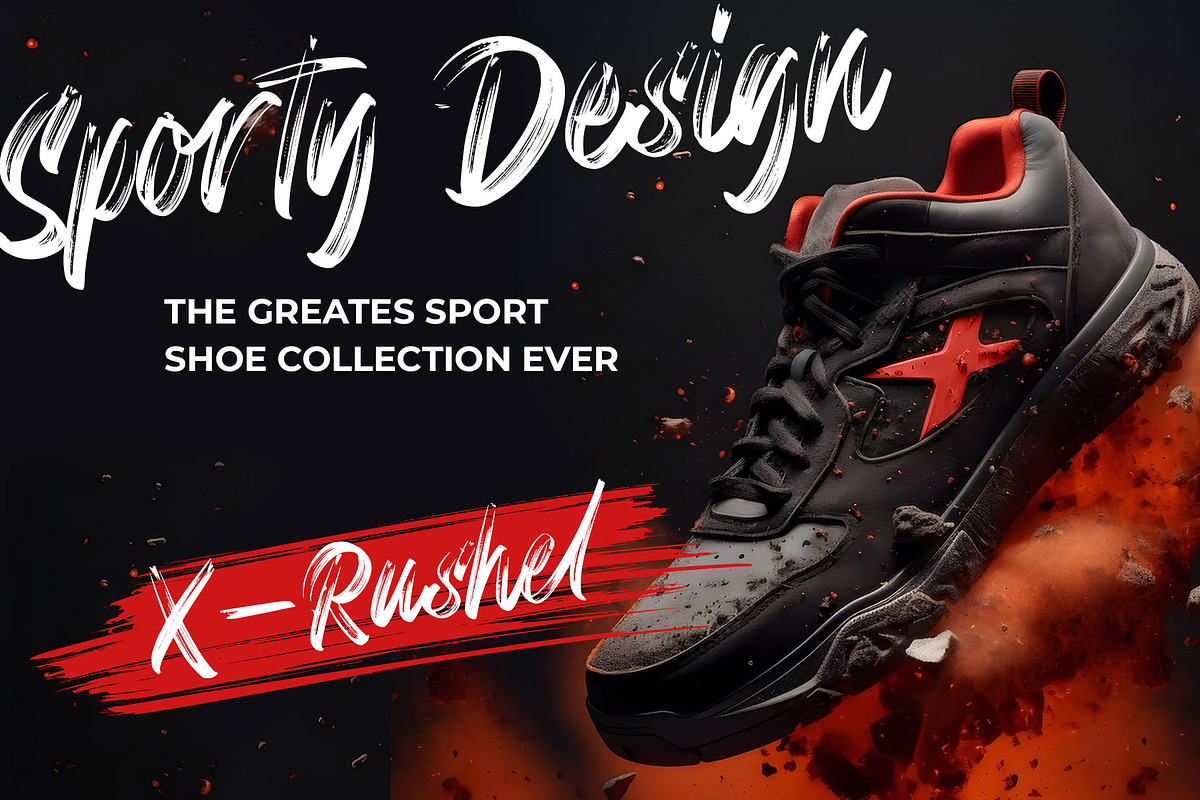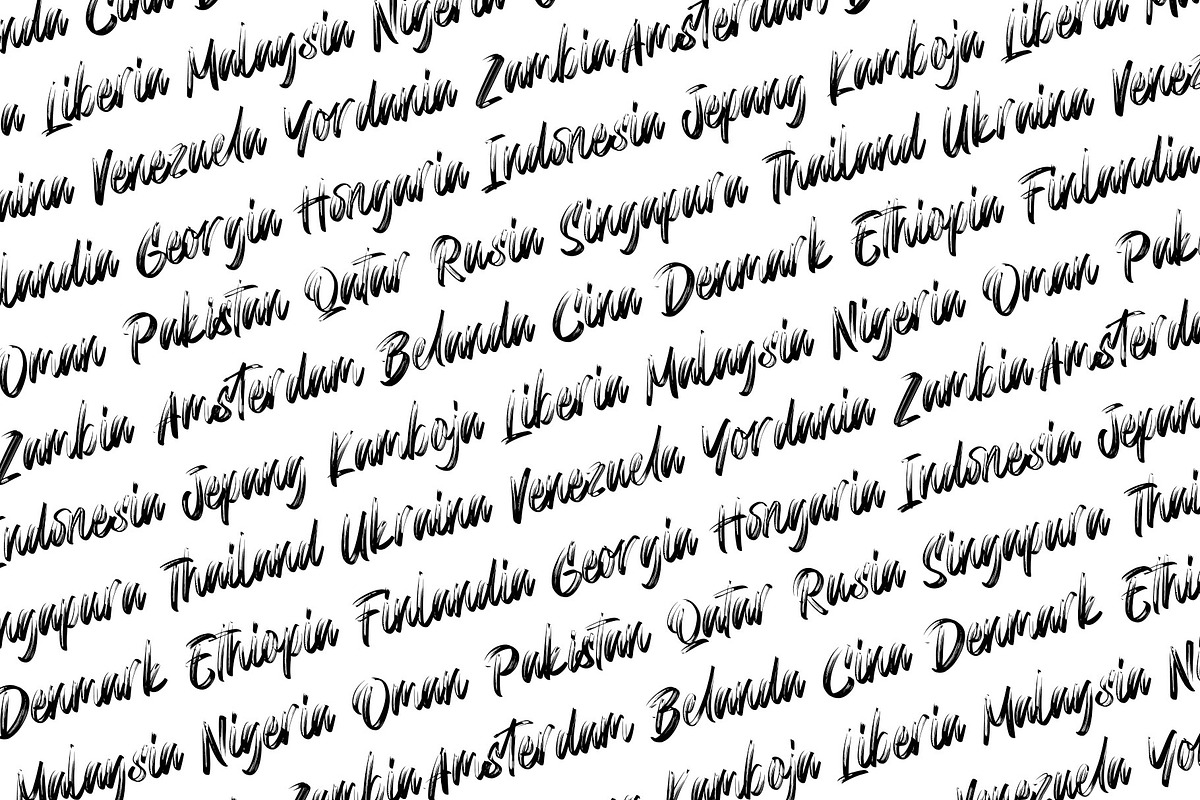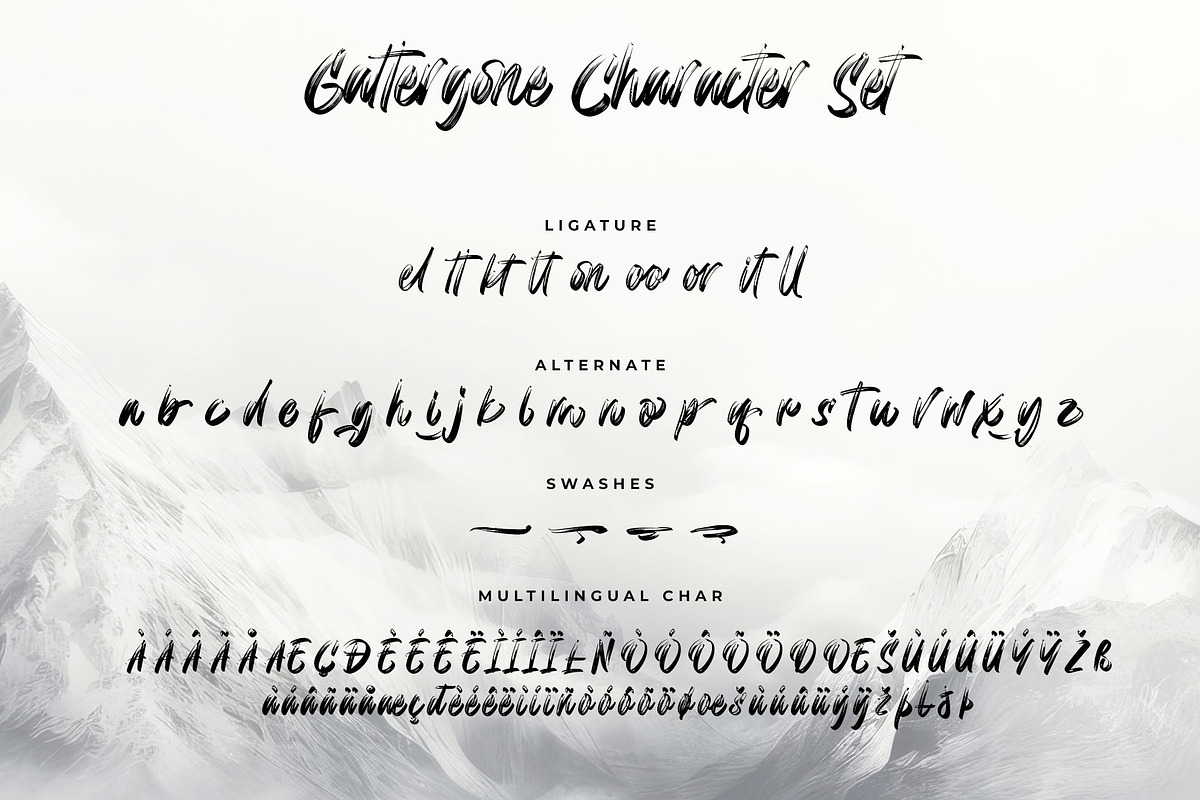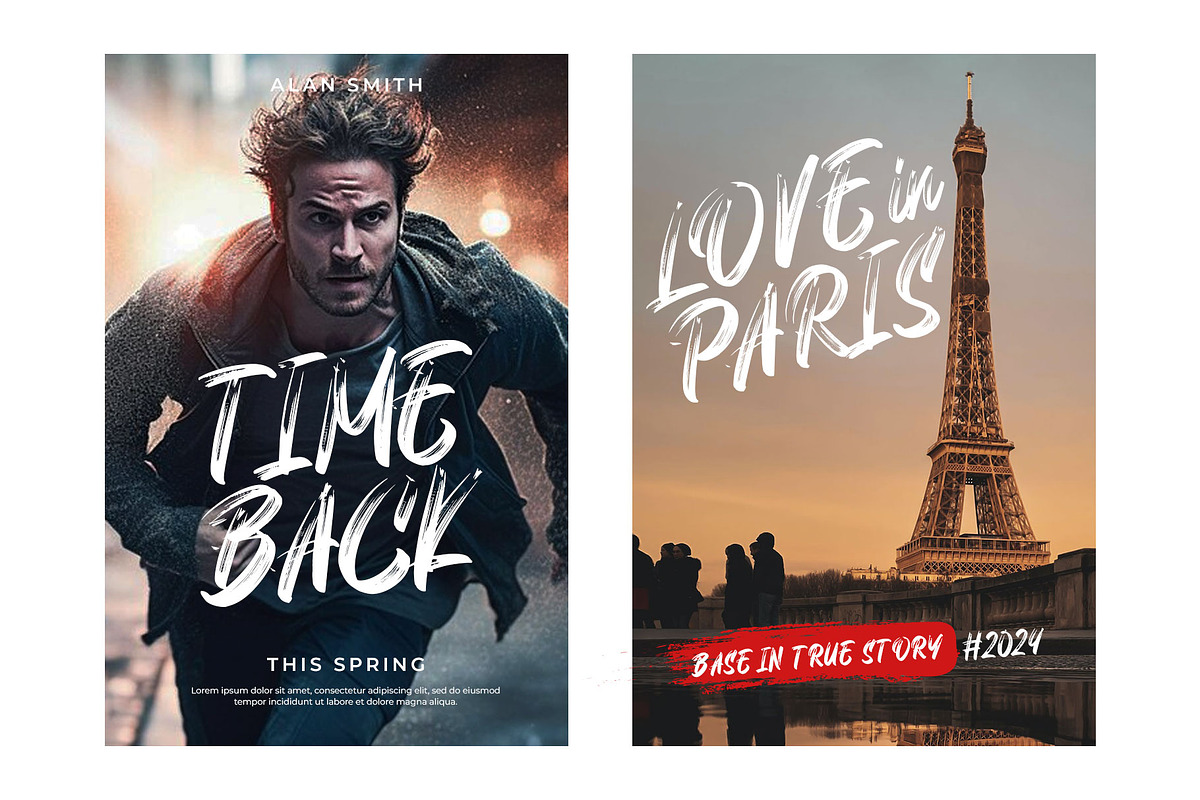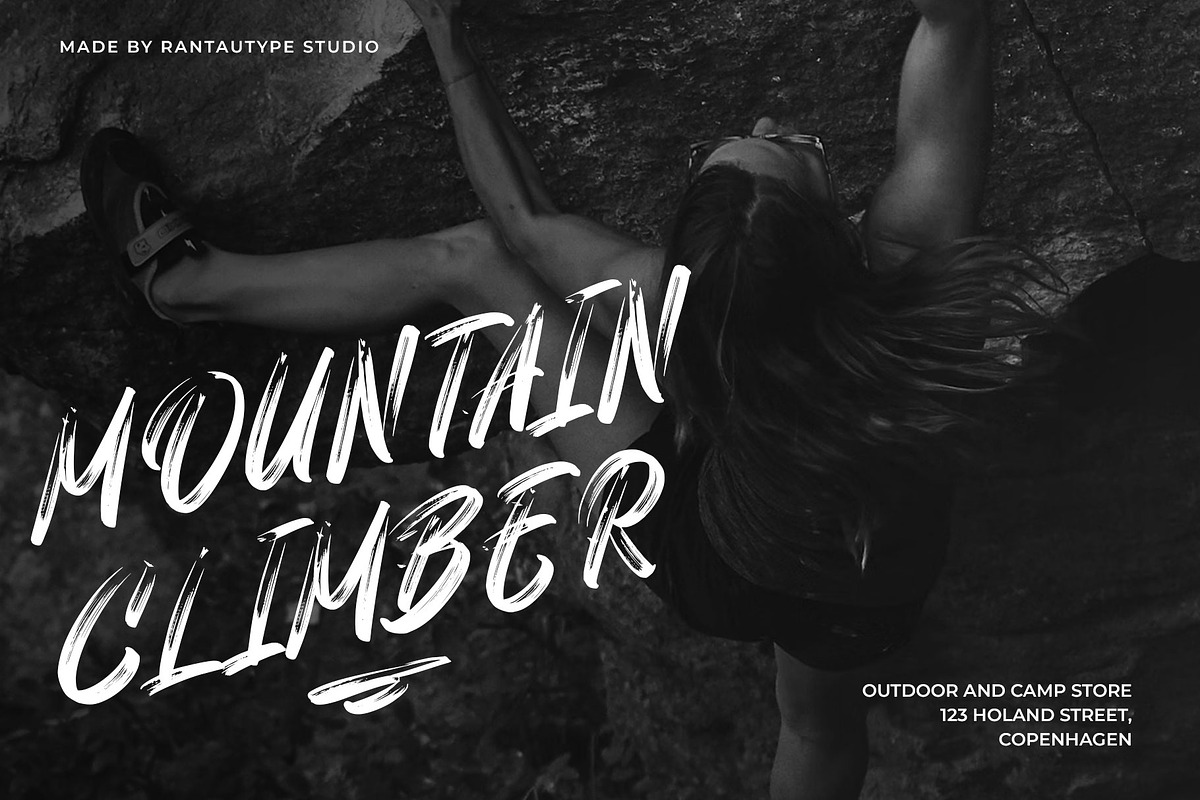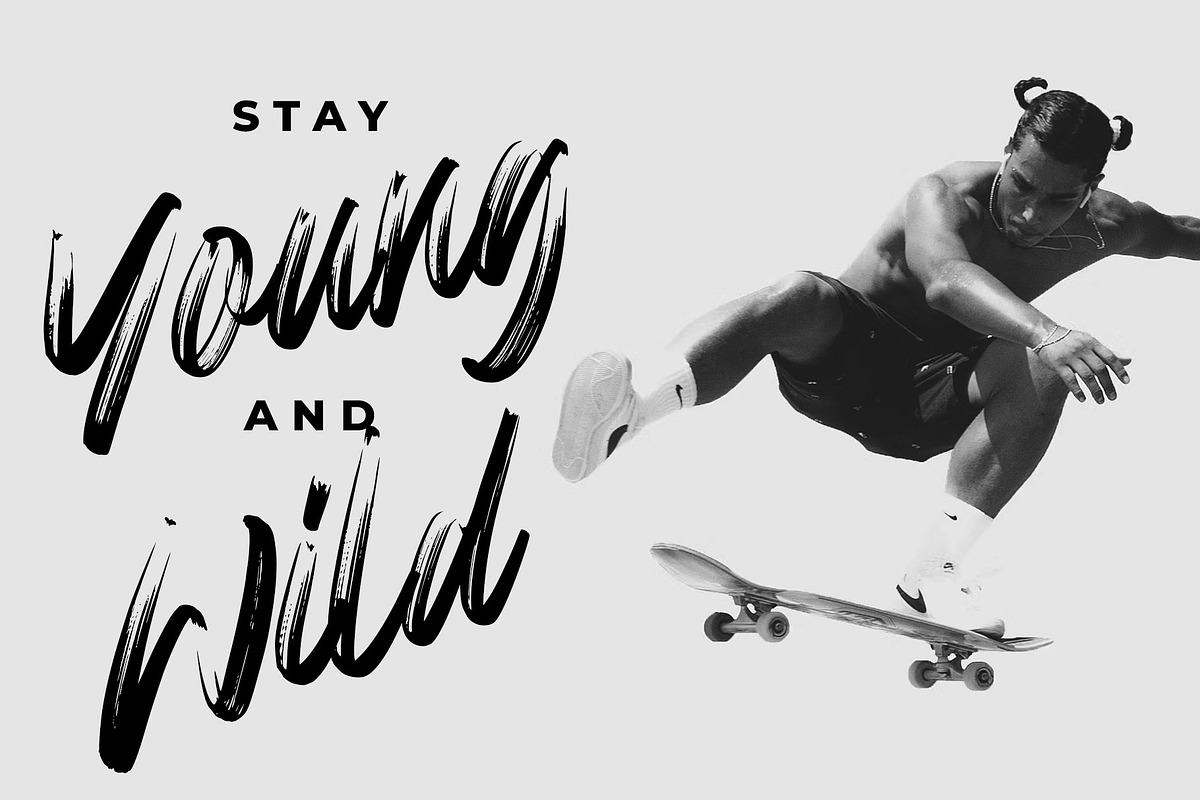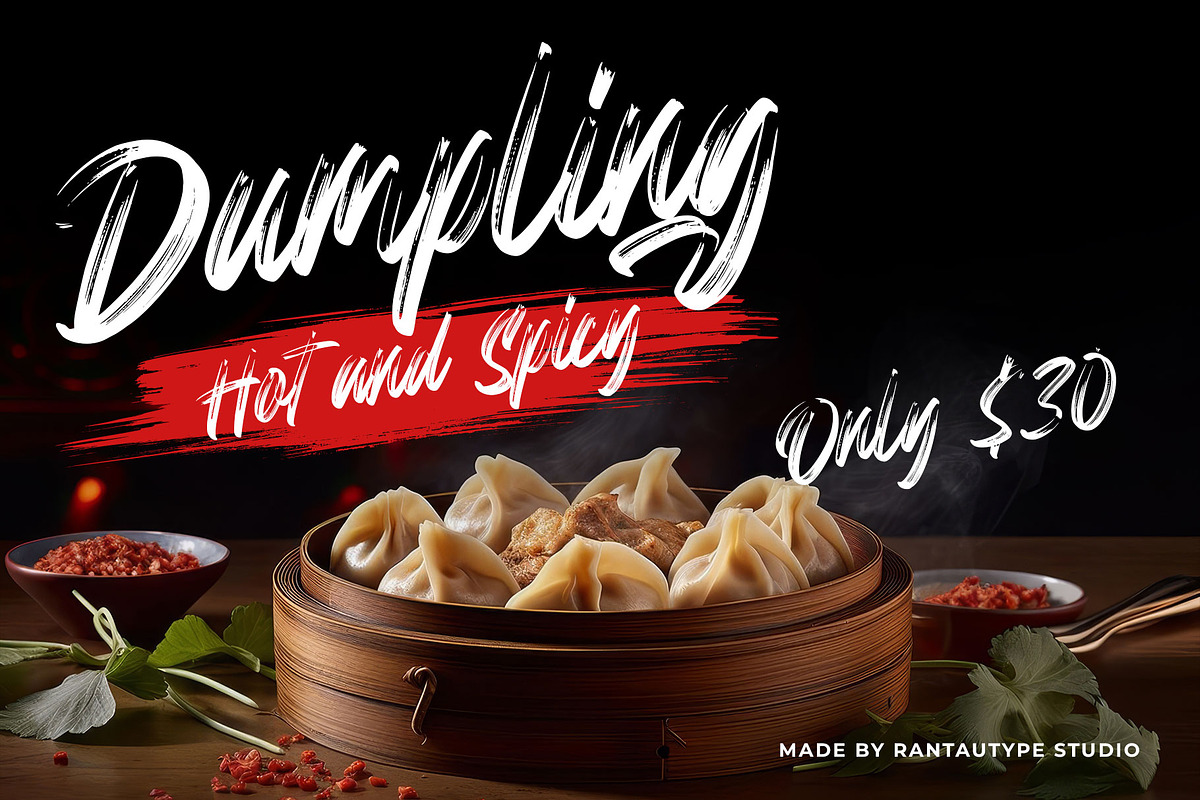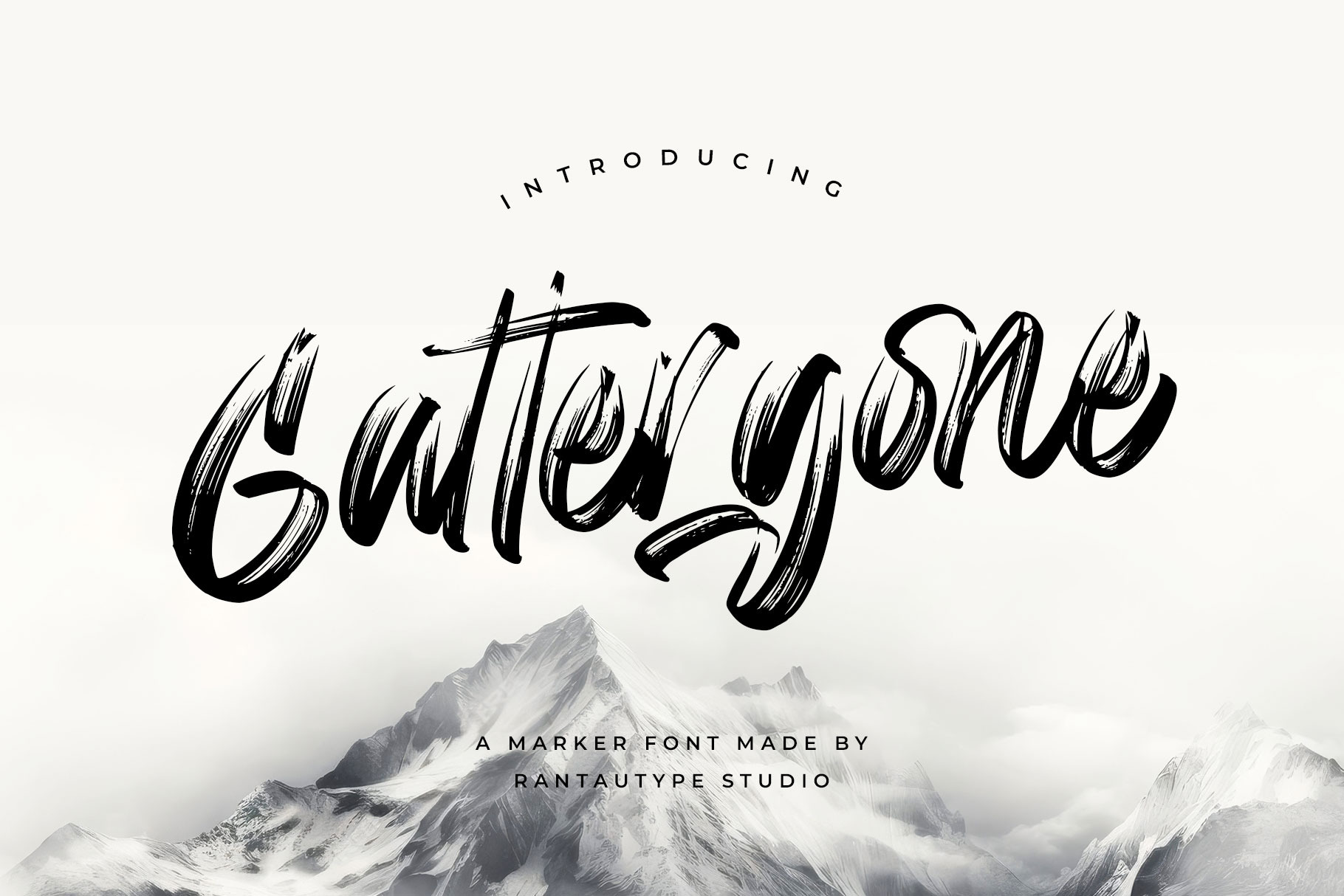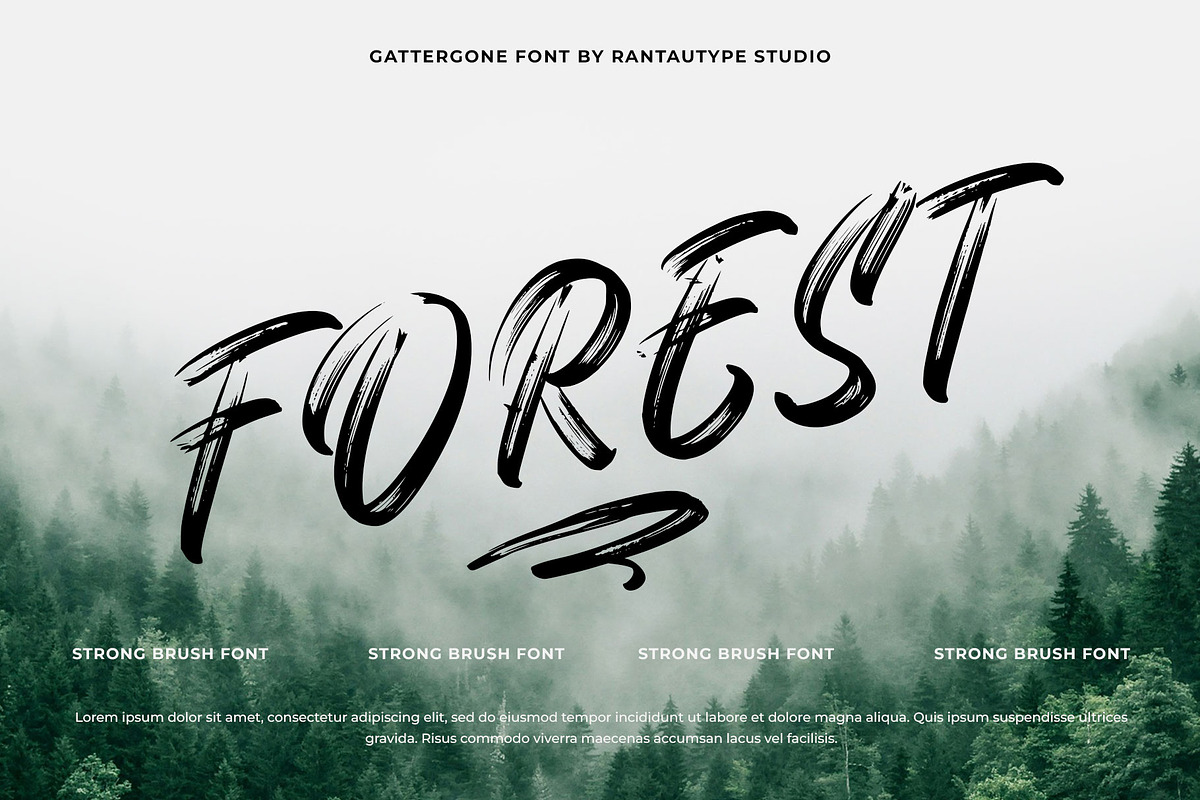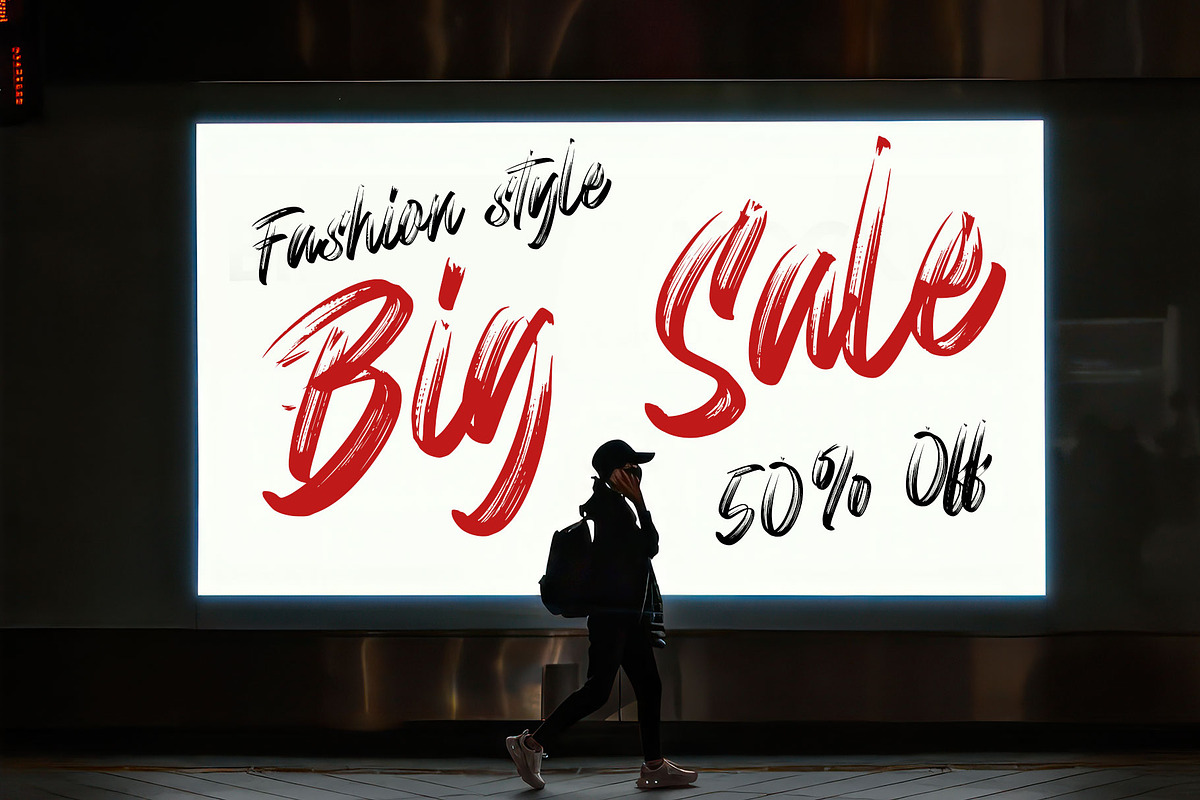
Gattergone Rough Brush Font
Gattergone is rough brush font with dinamic and unique slash handcafted font. Gattergone bring unleashes the power and strong into your design project more attractive and stand out!. Gattergone come with alternate, ligature and multilingual character. We keep this font look strong, bold, natural and eye catch.
Gattergone is a perfectly choice for any creative endeavor, chic, lifestyle design such as logos, advertisements, watermark on photography, stationery, branding project, display and magazine, invitation, corporate brand, product design, label, business project and other project with handwritten taste.
- Alternate and ligature